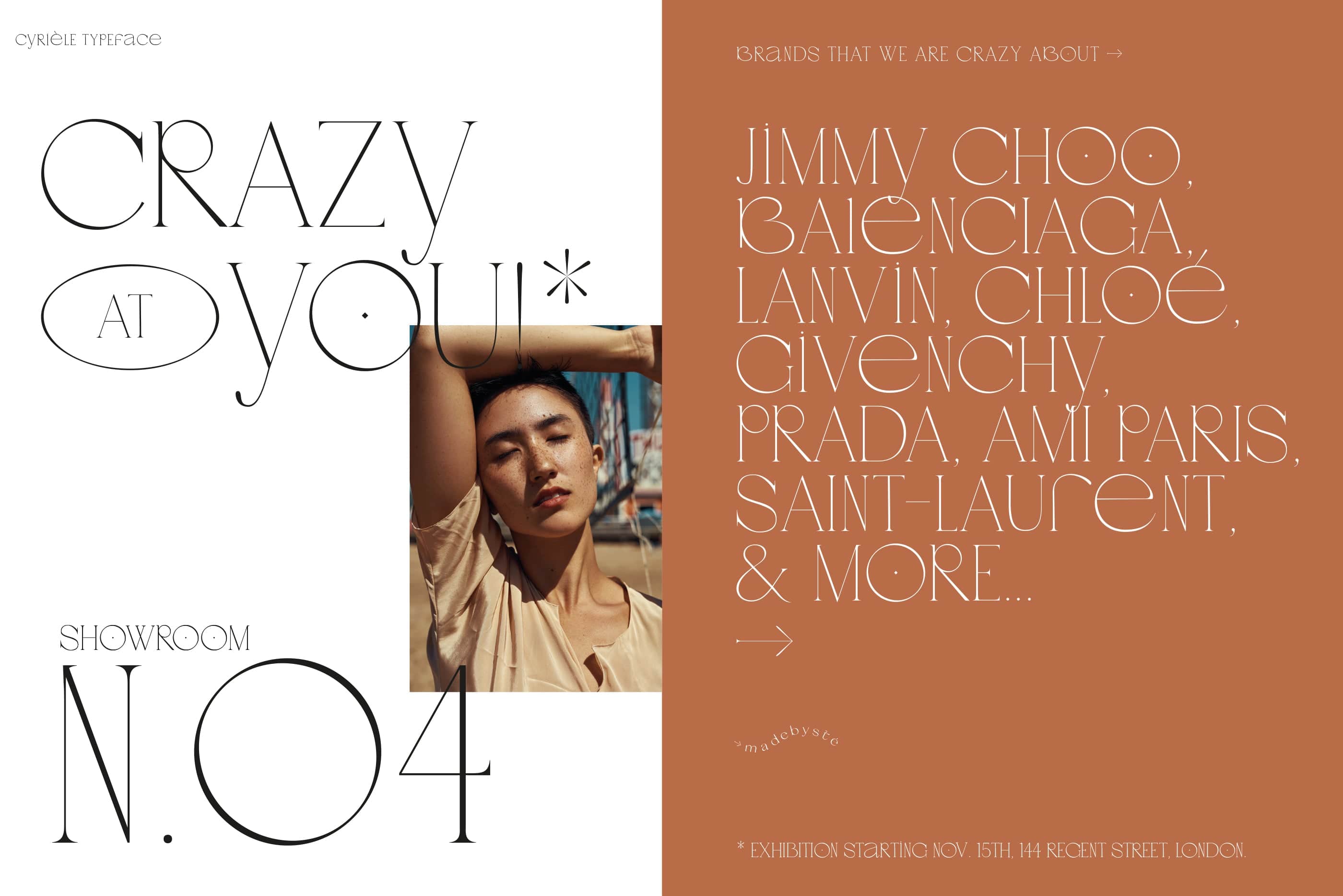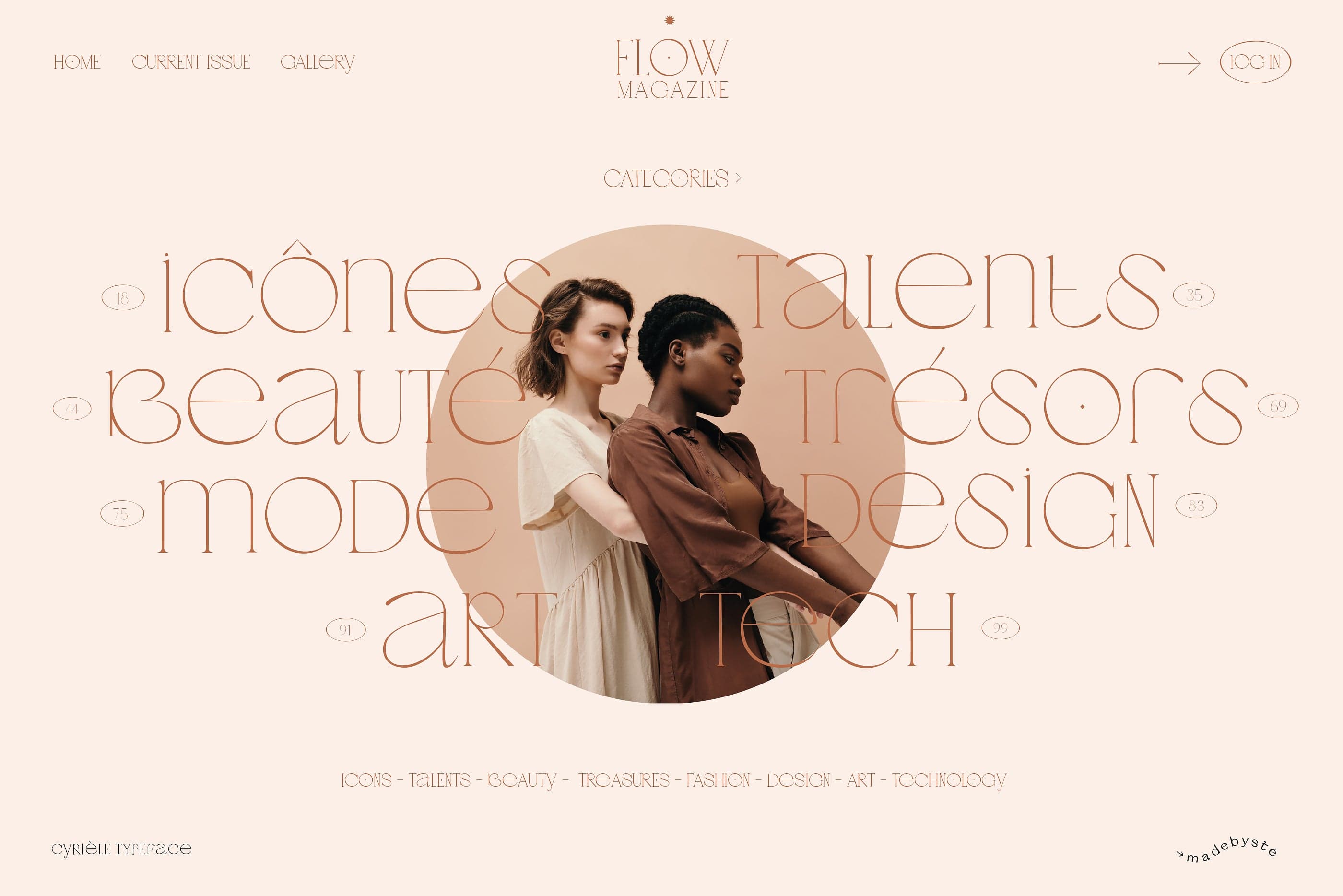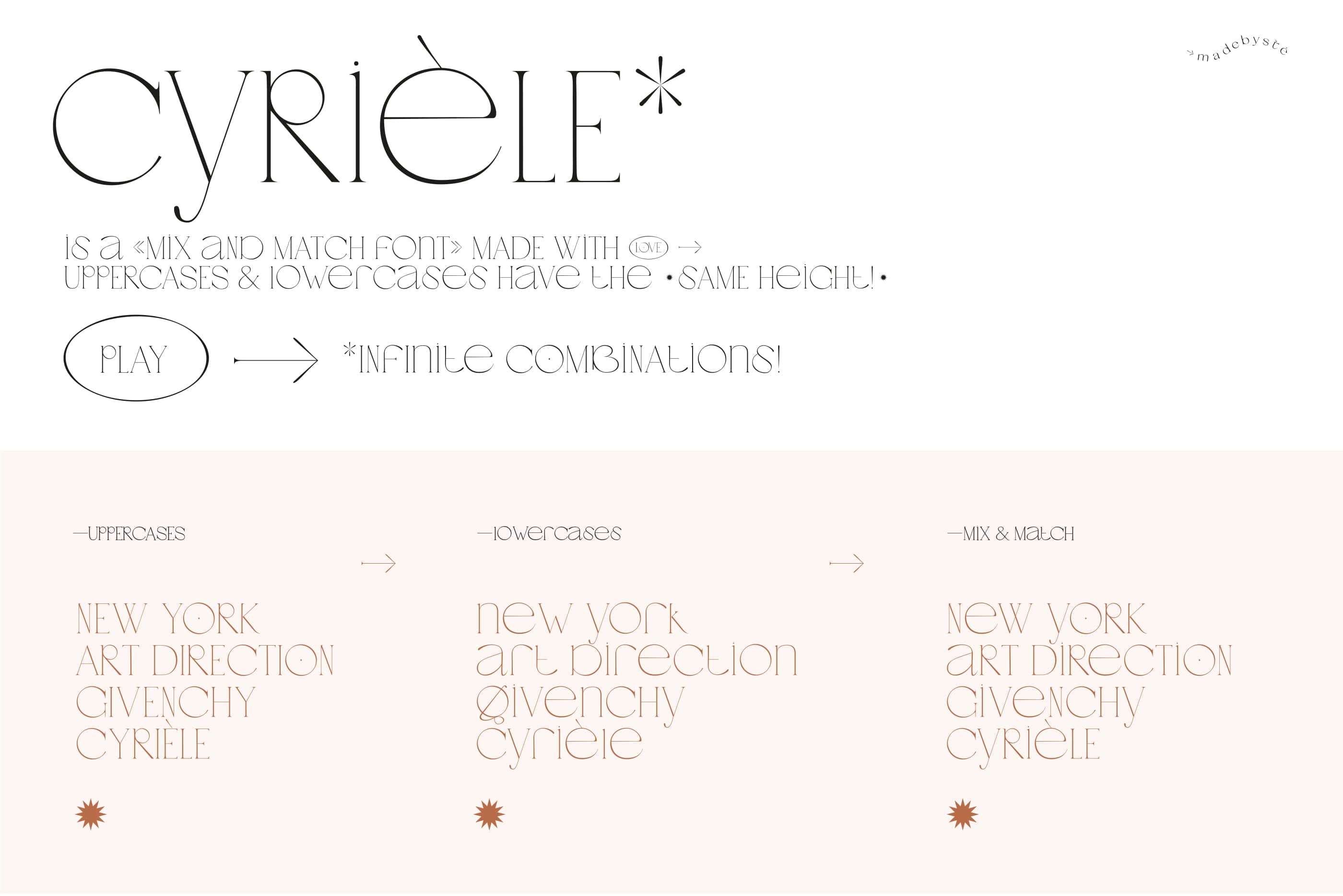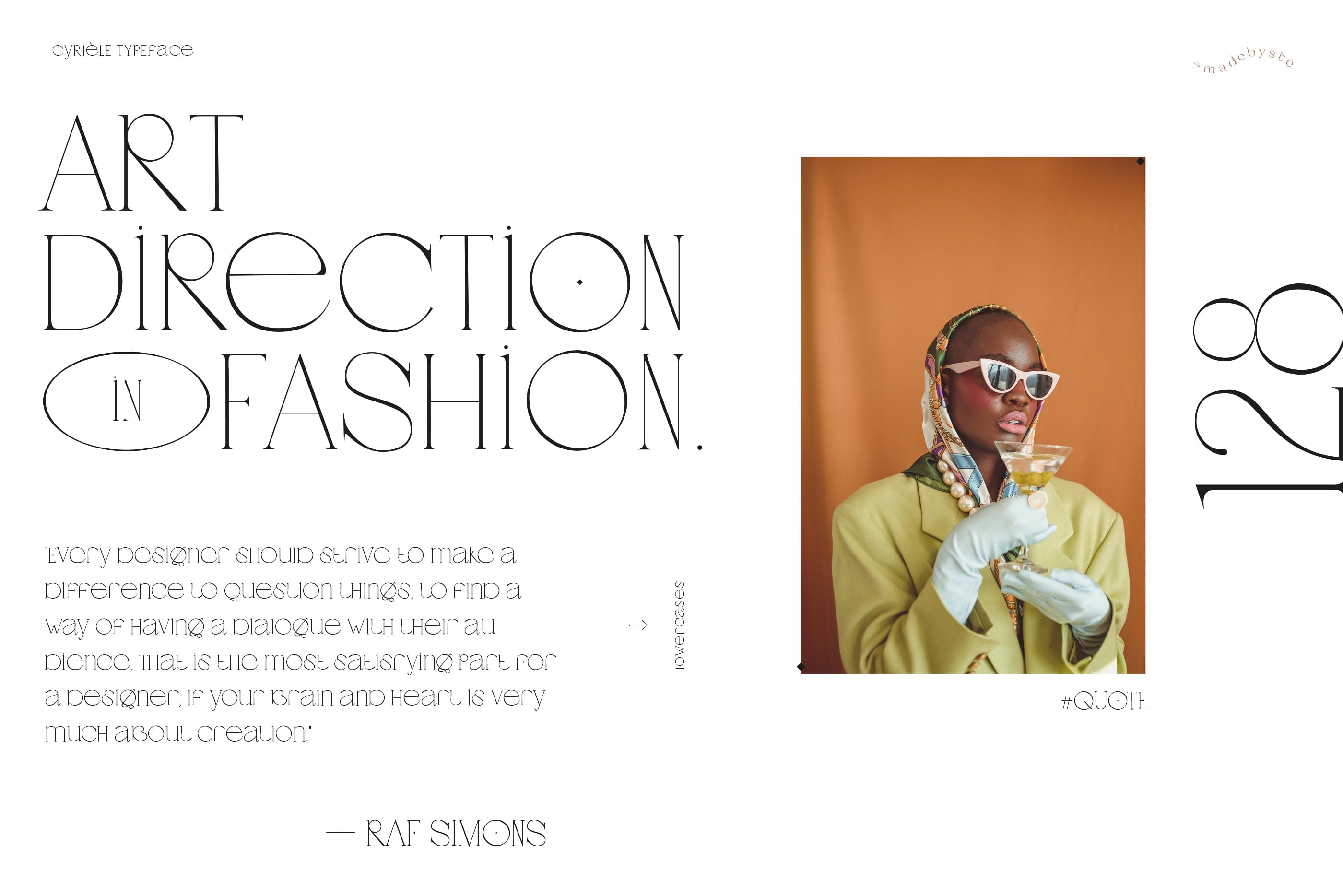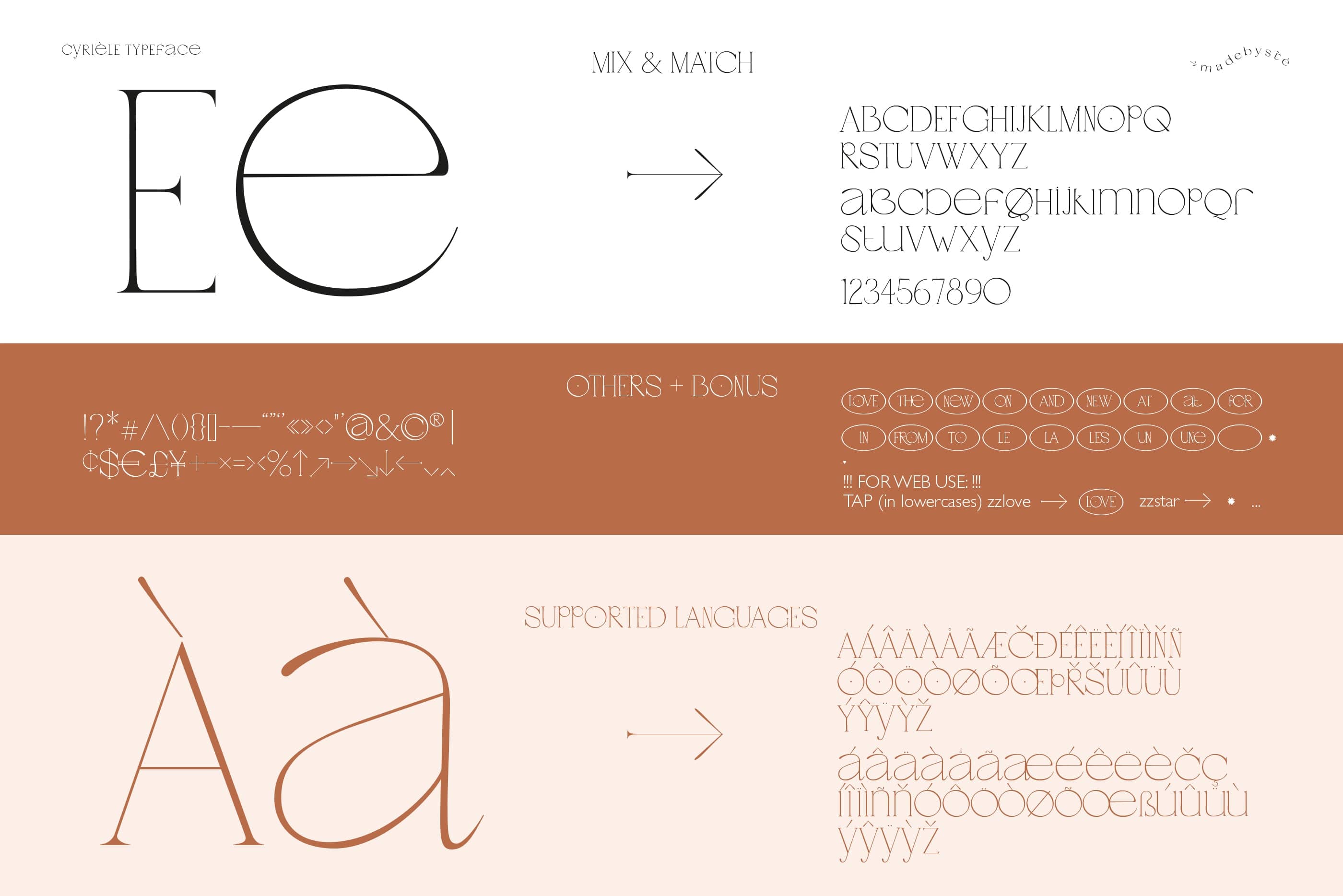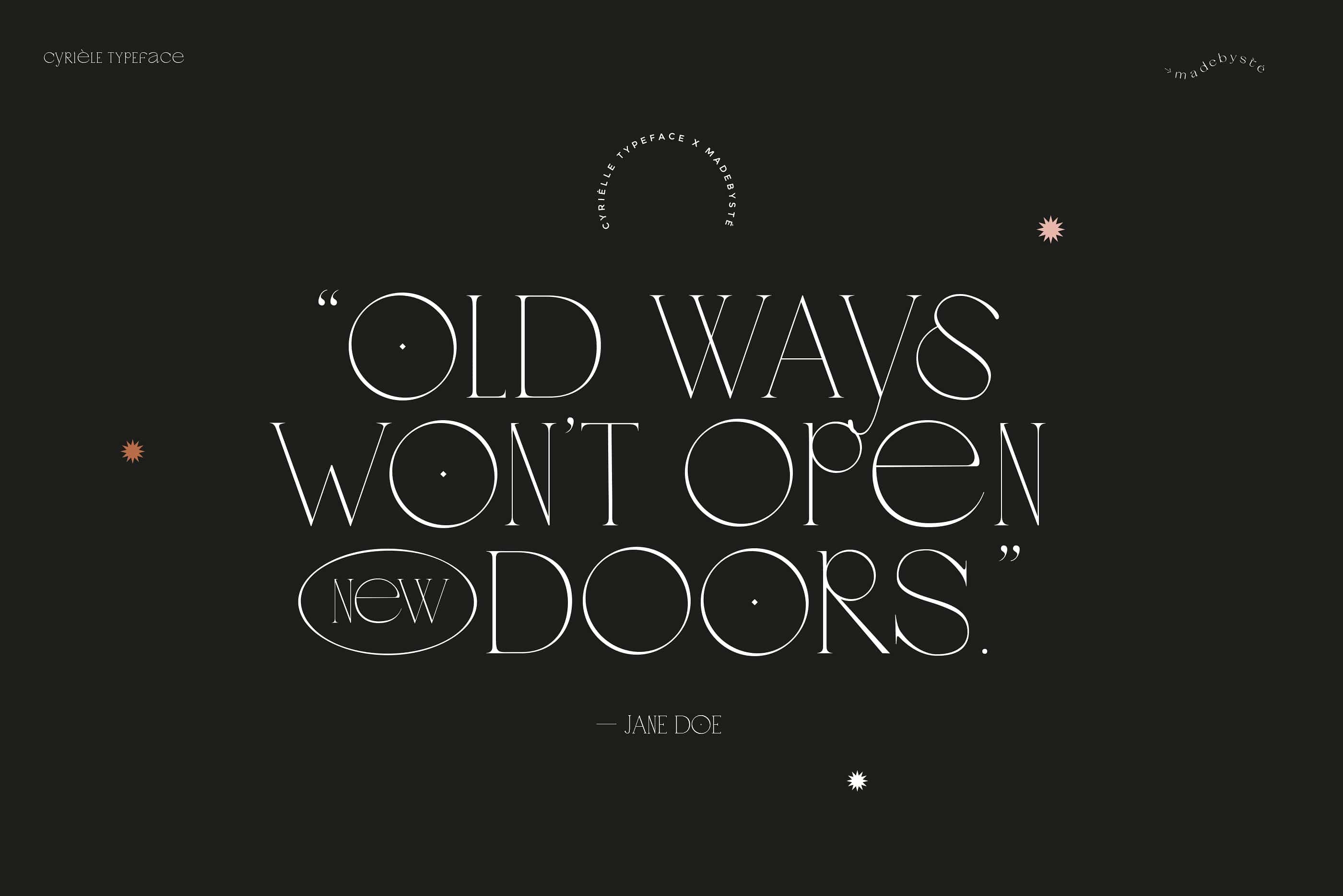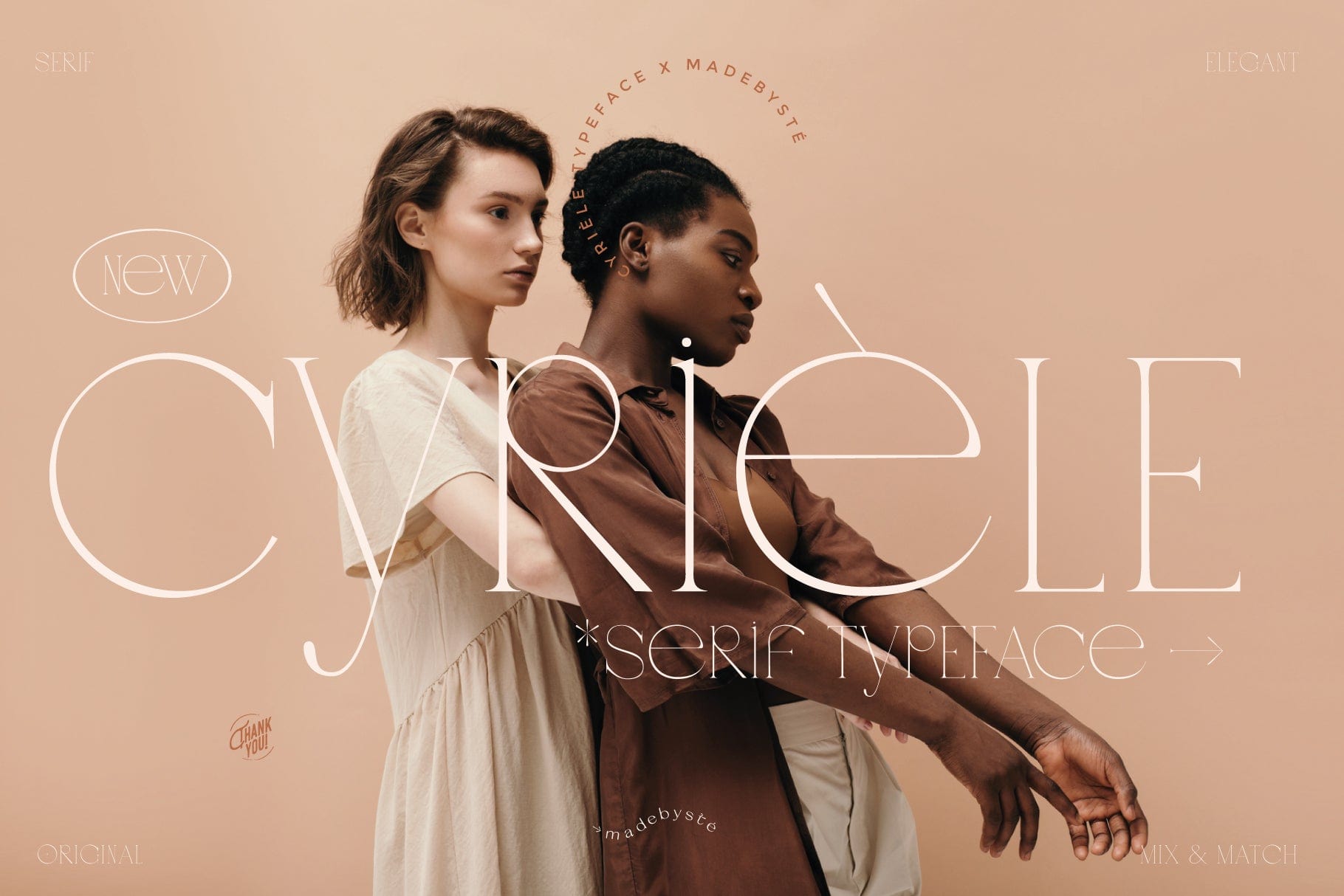
Cyrièle Typeface
Cyrièle is a thin, chic, modern and creative serif font that is unique because lowercases and uppercases have the same height. This allows infinite combinations to give your project a unique style! Cyrièle includes also CATCHWORDS to play with. Combine catchwords, mix and match uppercases and lowercases to enjoy it’s full potential. This font is ideal for fashion, creative branding, editorial design and web design.
For web use: Use the 17 Catchwords simply by typing (all lowercases) a zz in front of the desired word. ( zzlove, zzfor, zzthe, etc…)